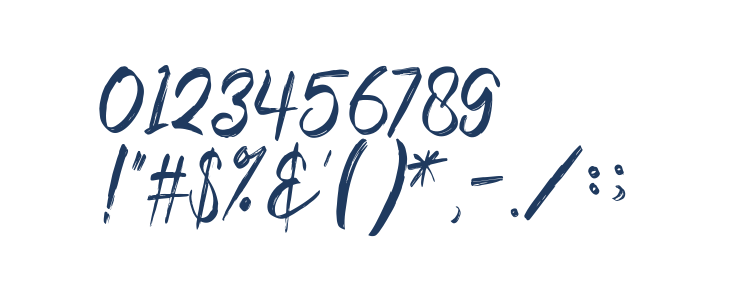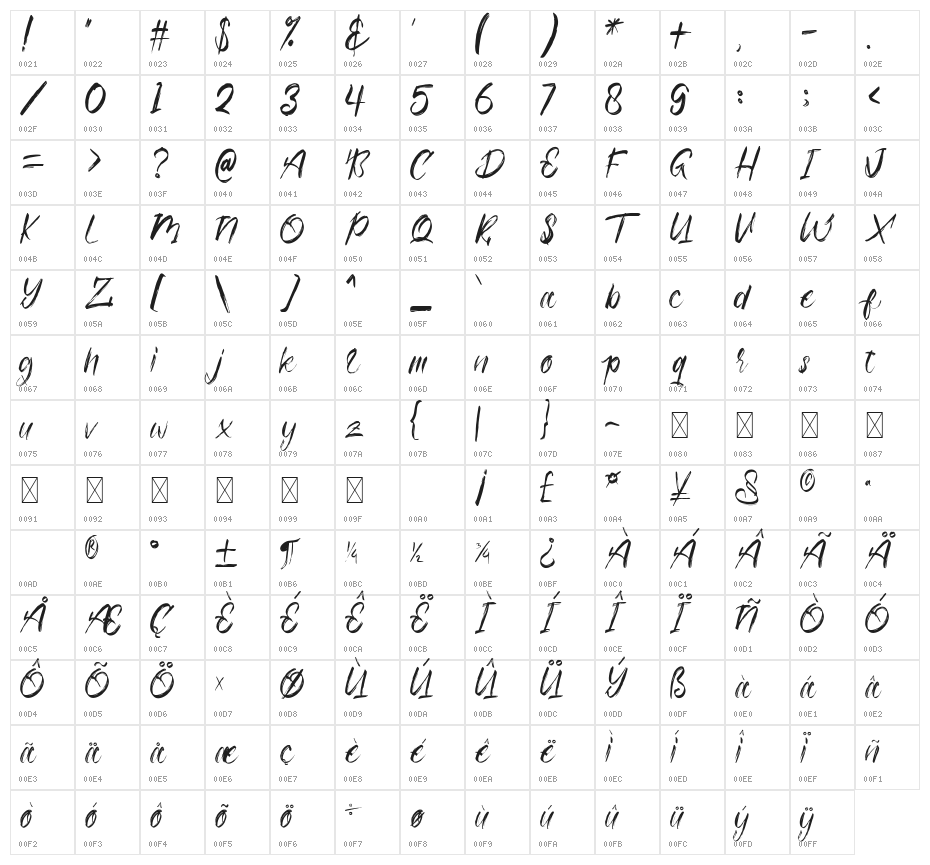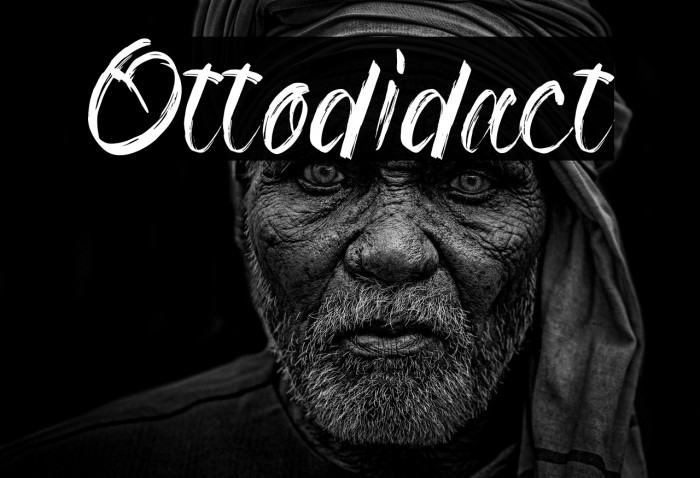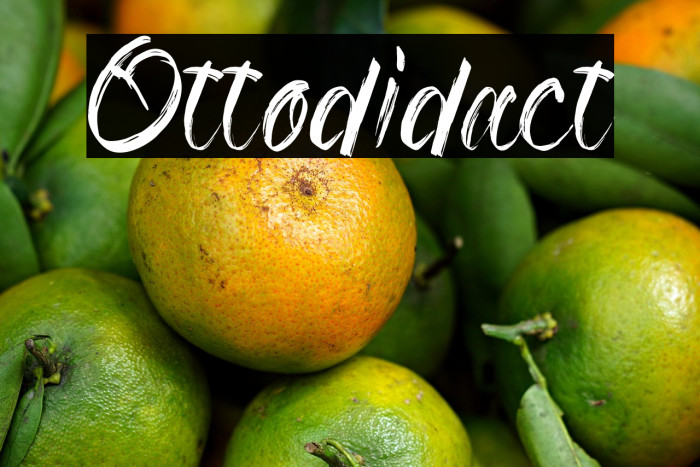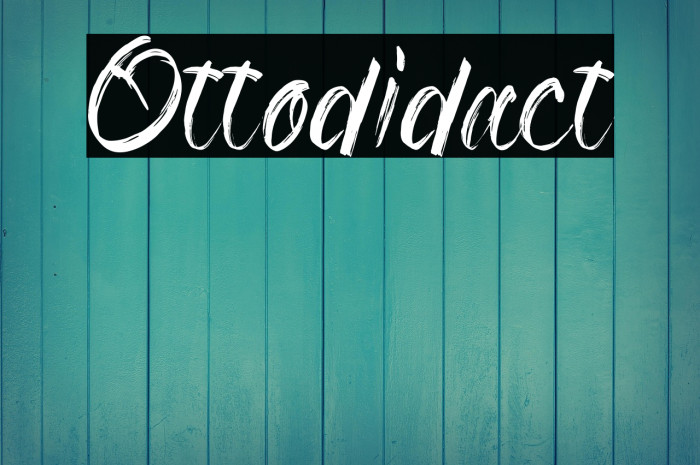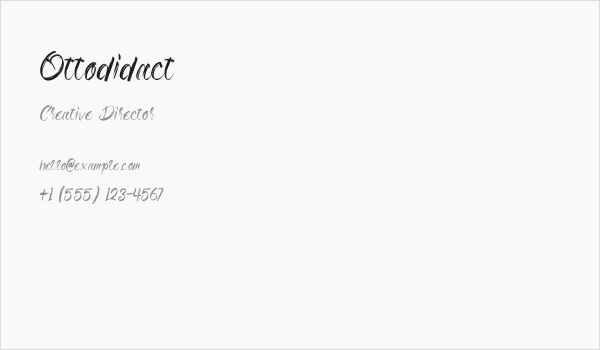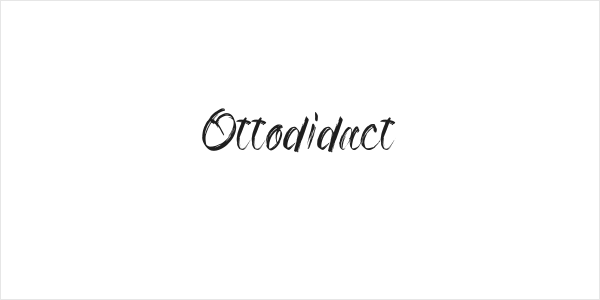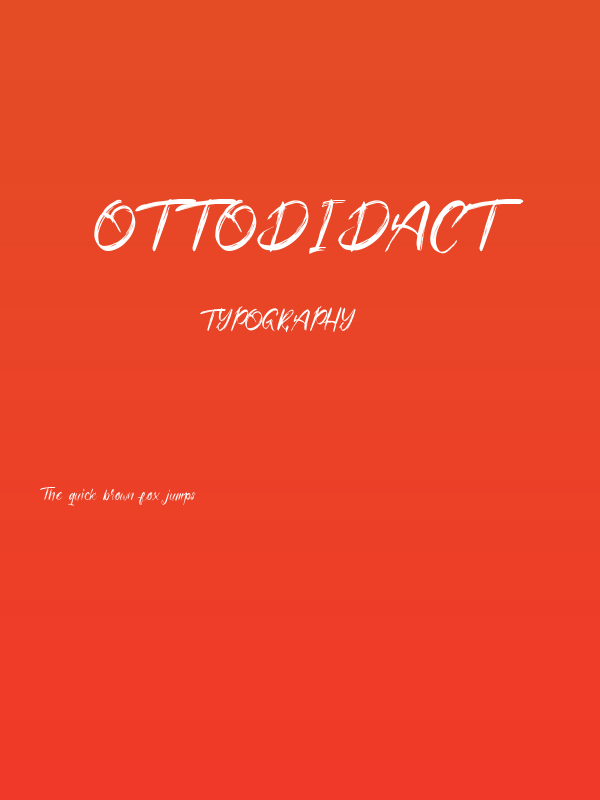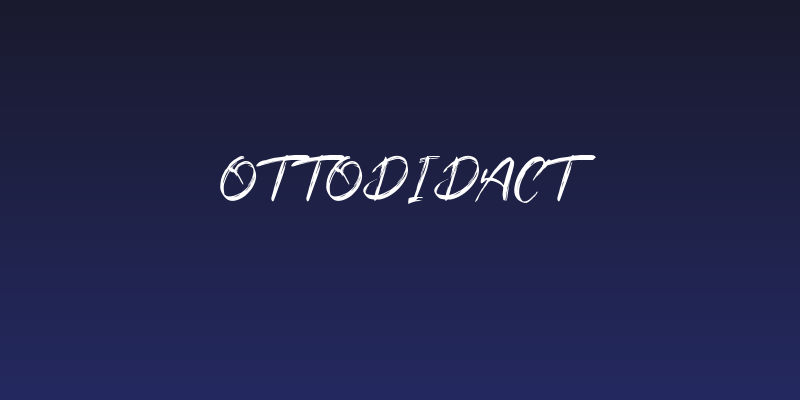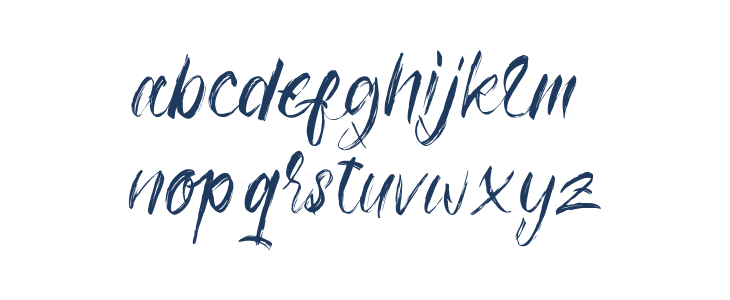
Ottodidact Font
This font features a dynamic and expressive handwritten style, characterized by bold, sweeping strokes and a sense of fluidity. The uppercase letters exhibit a strong presence with their dramatic curves and varying line thickness, while the lowercase letters maintain a consistent flow that complements the uppercase. The numerals are equally bold, with a playful yet assertive appearance. Special characters are crafted with the same energetic style, adding a cohesive look across all glyphs. The overall impression is one of creativity and spontaneity, making it ideal for projects that require a personal touch.
| Use Case | Logos, Headlines, Artistic branding |
| Proposed Projects | Ideal for creative projects such as logo design, greeting cards, posters, and artistic branding. |